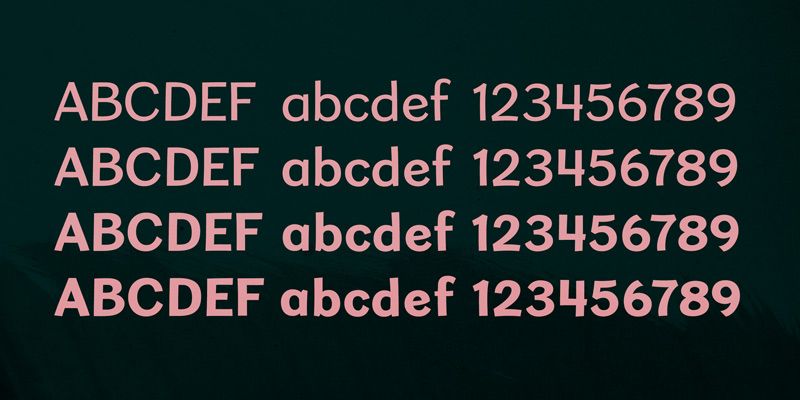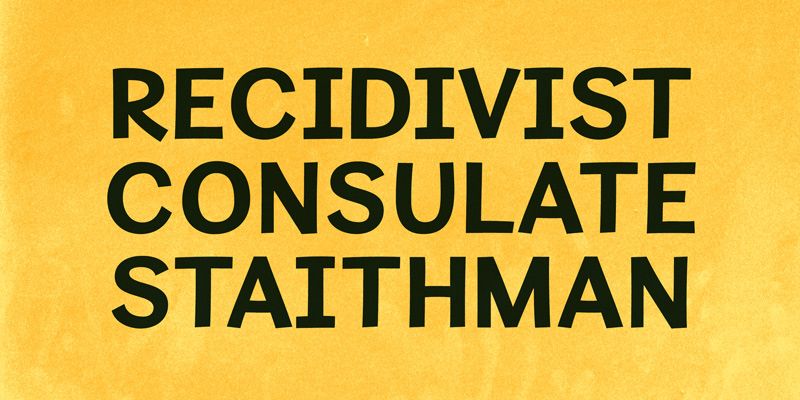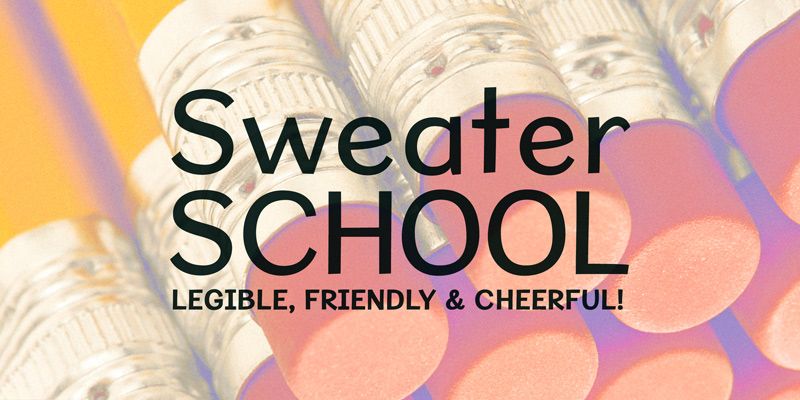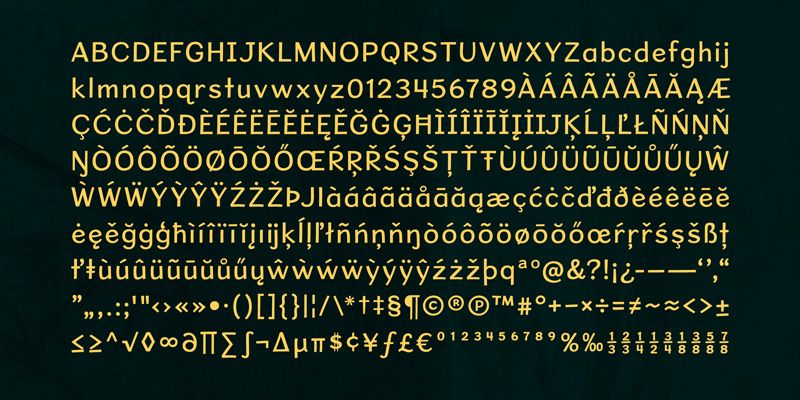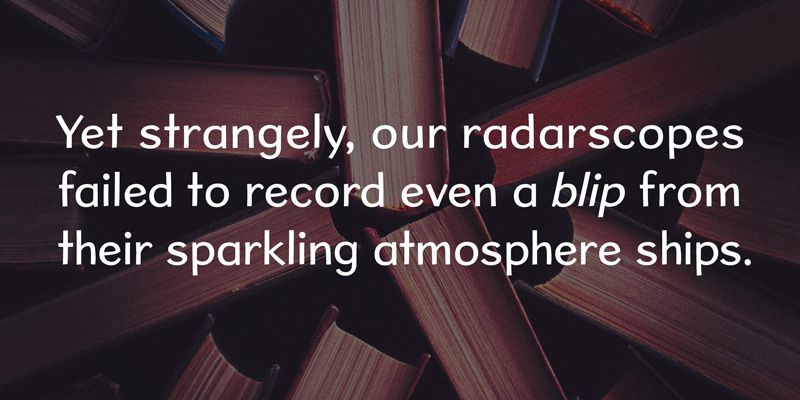
Sweater School adapts the print-lettering structure familiar from elementary classrooms into a friendly display family. Based on Cardigan, it makes small adjustments for readability while retaining the approachable feeling of a teacher’s hand on a worksheet. It can frame workbook covers, tutoring materials, classroom posters, school-supply packaging, and children’s museum activities without asking the letters to serve as a formal handwriting model. Regular, SemiBold, Bold, and ExtraBold provide four upright weights, giving a learning program several levels of emphasis within one voice. Use the lighter end for headings and labels, and the stronger weights for covers or short announcements.